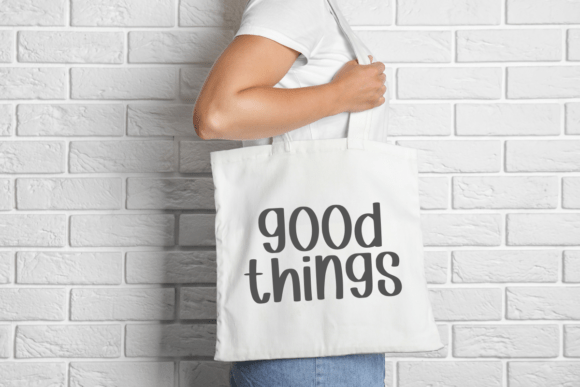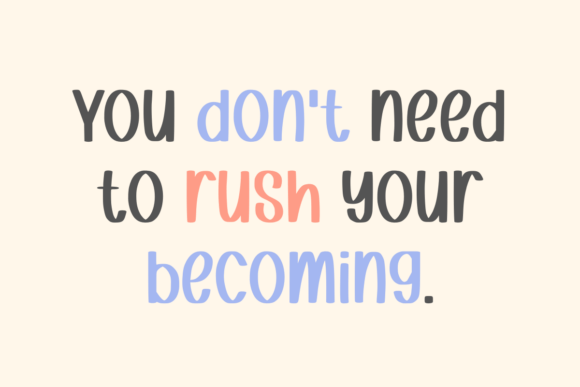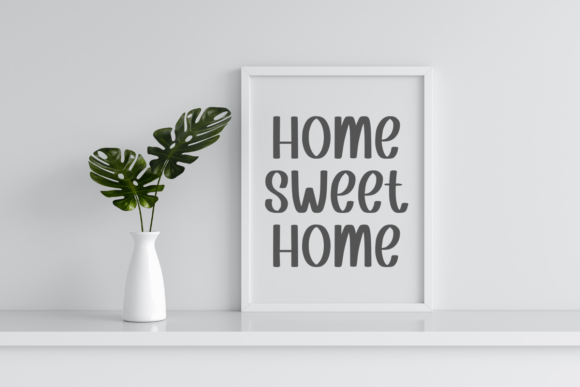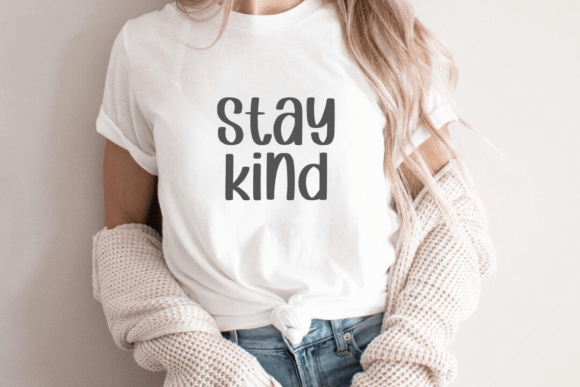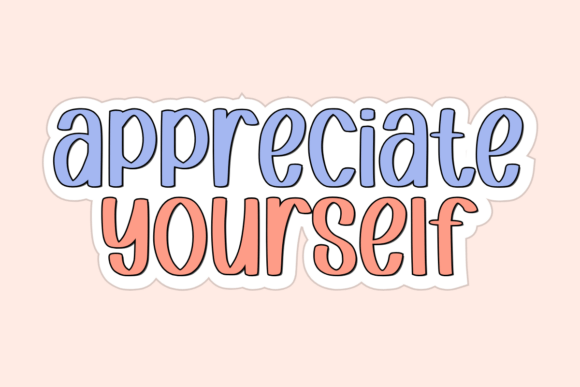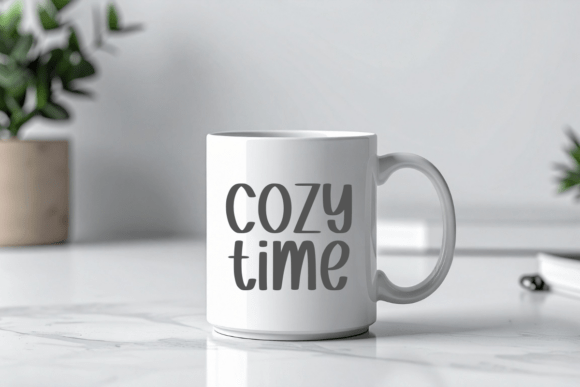
Introducing the Amazing Farmhouse Font: A Cute and Friendly Addition to Your Design Projects
Are you a designer, crafter, or DIY enthusiast looking for a font that can add a touch of warmth and personality to your projects? Look no further than the Amazing Farmhouse Font, a beautiful sans serif handwriting font designed to bring a soft, friendly, and natural look to your creations. In this article, we’ll explore the features and benefits of this amazing font, and show you how it can be used to take your craft projects, planners, stickers, and more to the next level.
A Warm and Handcrafted Feel
The Amazing Farmhouse Font is designed to evoke a sense of warmth and friendliness, making it perfect for craft projects, planners, stickers, kids’ worksheets, classroom printables, and DIY designs. Its simple strokes and smooth curves give it a smooth, handcrafted feel that’s reminiscent of handwritten text. This font is ideal for designers and crafters who want to add a personal touch to their work, and create a sense of connection with their audience.
One of the best things about the Amazing Farmhouse Font is its versatility. This font can be used for a wide range of projects, including:
- Quotes: Add a touch of personality to your inspirational quotes, and make them stand out with this beautiful font.
- Greeting cards: Create beautiful and heartfelt greeting cards for special occasions, using the Amazing Farmhouse Font.
- Kids’ labels: Make labeling fun and engaging for kids, with this cute and playful font.
- Coloring pages: Add a touch of whimsy to your coloring pages, and make them more appealing to kids.
- Worksheets: Create engaging and interactive worksheets for kids, using the Amazing Farmhouse Font.
- Bullet journals: Add a personal touch to your bullet journals, and make them more visually appealing.
- Scrapbooks: Create beautiful and memorable scrapbooks, using this lovely font.
- Playful graphic projects: Use the Amazing Farmhouse Font to add a touch of playfulness to your graphic projects, and make them more engaging.
Perfect for Crafting Moms
The Amazing Farmhouse Font is especially perfect for crafting moms who love adorable handwritten styles. This font is easy to cut using Cricut and Silhouette, making it ideal for craft projects that require precision and accuracy. With this font, you can create beautiful and professional-looking projects, without spending hours on complicated designs.
Why Choose the Amazing Farmhouse Font?
So why choose the Amazing Farmhouse Font over other fonts? Here are just a few reasons:
- Unique and playful design: This font has a unique and playful design that’s sure to stand out from the crowd.
- Easy to read: The Amazing Farmhouse Font is easy to read, making it perfect for projects that require clear and concise text.
- Versatile: This font can be used for a wide range of projects, making it a great addition to your font library.
- Handcrafted feel: The Amazing Farmhouse Font has a handcrafted feel that’s perfect for designers and crafters who want to add a personal touch to their work.
Overall, the Amazing Farmhouse Font is a great addition to any design project, and is sure to become a favorite among designers and crafters. Its unique and playful design, combined with its versatility and handcrafted feel, make it a must-have font for anyone looking to add a personal touch to their work.